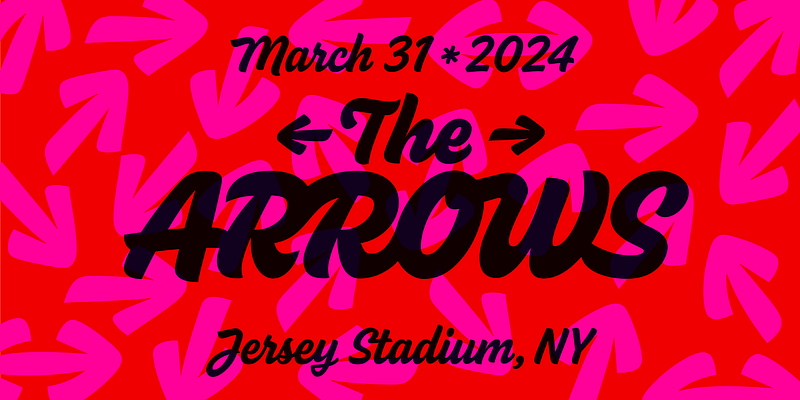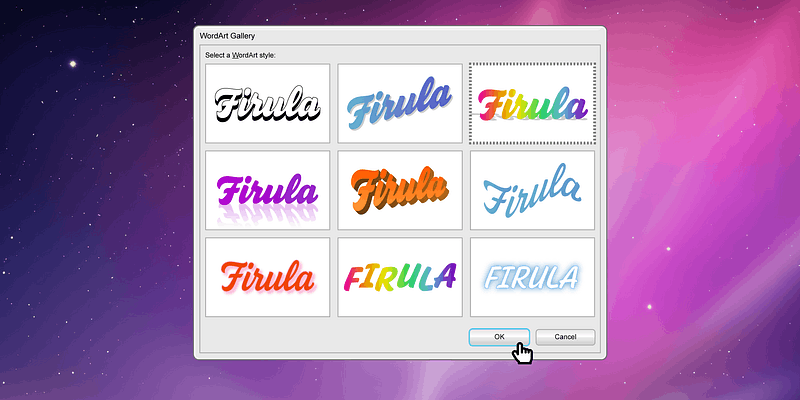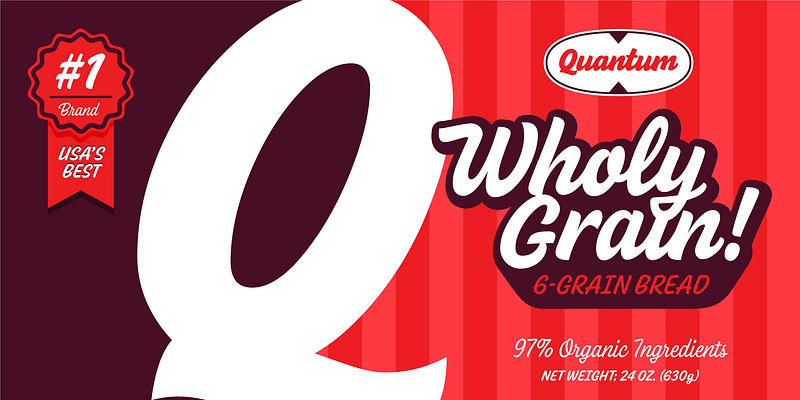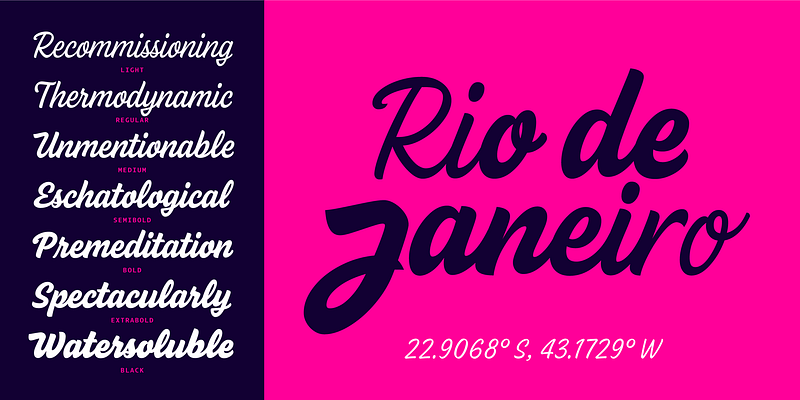
Firula is flourish, ornament, embellishment. It’s swirl, curve, adornment. Firula is our latest font, a typeface that embraces joy. A variable connected script in 7 styles. With simple or cursive capitals, details, and surprises that make each word feel as if it were crafted by the brush.